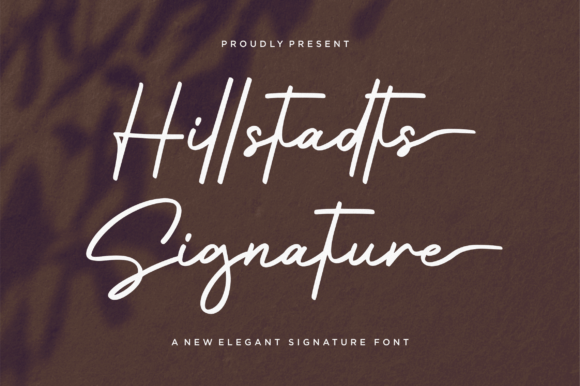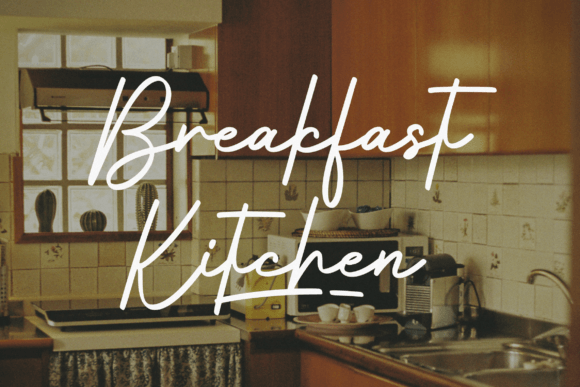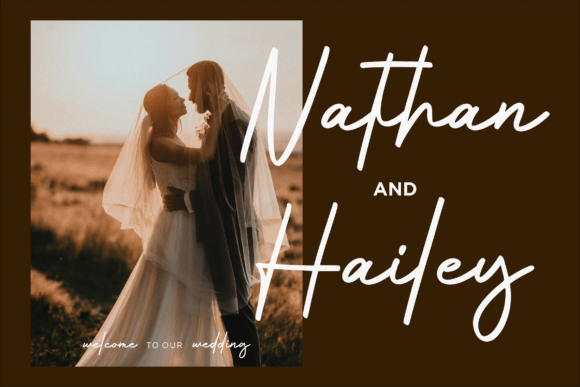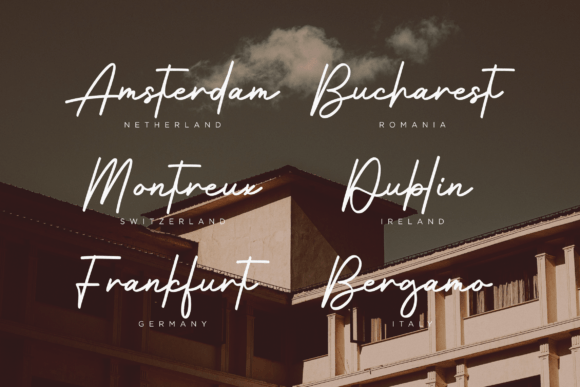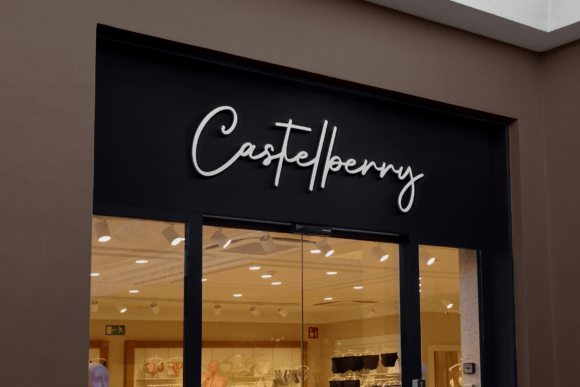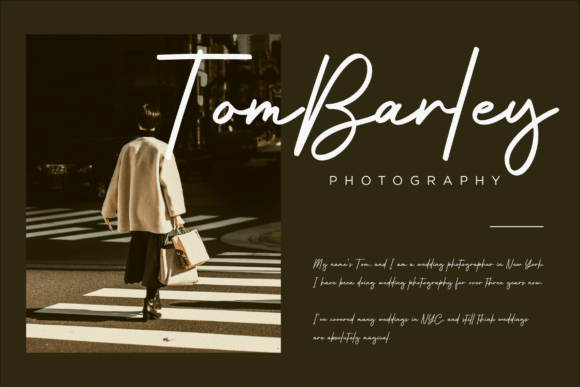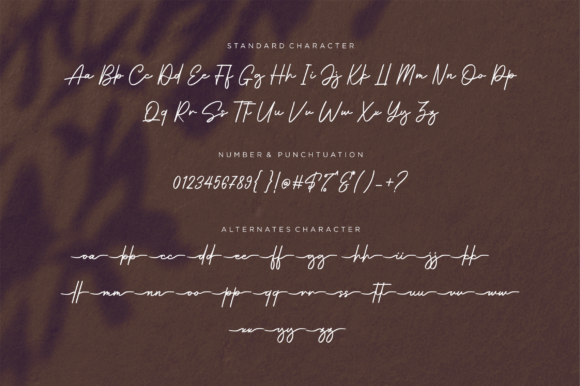
The Ultimate Signature Font for Designers
Have you ever sat down with a blank sheet of paper, a pen in hand, and a spark of creativity in your mind? The moment when a design idea begins to take shape is one of the most exhilarating feelings for any designer. But, what if that spark could be amplified with the perfect font? Enter Hillstadts Signature Font, a stunning addition to any designer’s toolkit.
This elegant signature font is designed to elevate your branding projects, product packaging, and social media graphics. With over 70 stylish scratch lines and swash alternates, Hillstadts Signature Font is the perfect tool to express your unique style. Whether you’re a seasoned designer or just starting out, this font is a valuable asset that will help you create stunning visuals that stand out from the crowd.
Hillstadts Signature Font Key Features
- Unique Characteristics: Distinctive, handwritten feel with a mix of cursive and script elements
- Kerning and Ligatures: Includes advanced kerning and ligature pairs for improved readability and aesthetics
Honest Review: Hillstadts Signature Font
I’ve had the chance to work with Hillstadts Signature Font, and here’s my honest take.
- Unique flair: This font has a distinct, handcrafted feel that can add a touch of personality to your designs.
- Legibility: Despite its ornate nature, Hillstadts Signature Font is surprisingly easy to read, making it suitable for a wide range of applications.
- Limited font size range: While the font looks great at larger sizes, it can become pixelated and distorted at smaller sizes.
- Overuse potential: The unique design of Hillstadts Signature Font can make it prone to overuse, which can lead to visual fatigue.
- Lack of versatility: This font may not be the best choice for projects that require a more modern or minimalist aesthetic.
Overall, Hillstadts Signature Font is a great addition to any designer’s toolkit, but it’s essential to use it thoughtfully and in the right context. With its unique flair and legibility, it can add a touch of sophistication to your designs. However, be mindful of its limitations and use it in moderation to avoid overuse and visual fatigue.
For the most effective use of Hillstadt’s Signature Font, focus on contrast and balance. Pair the font with complementary colors and shapes to create visual interest. Use it for headings and titles to draw attention, and for body text to add a touch of sophistication. Consider using it in wedding invitations, branding materials, and other creative projects where a unique and elegant font is desired.